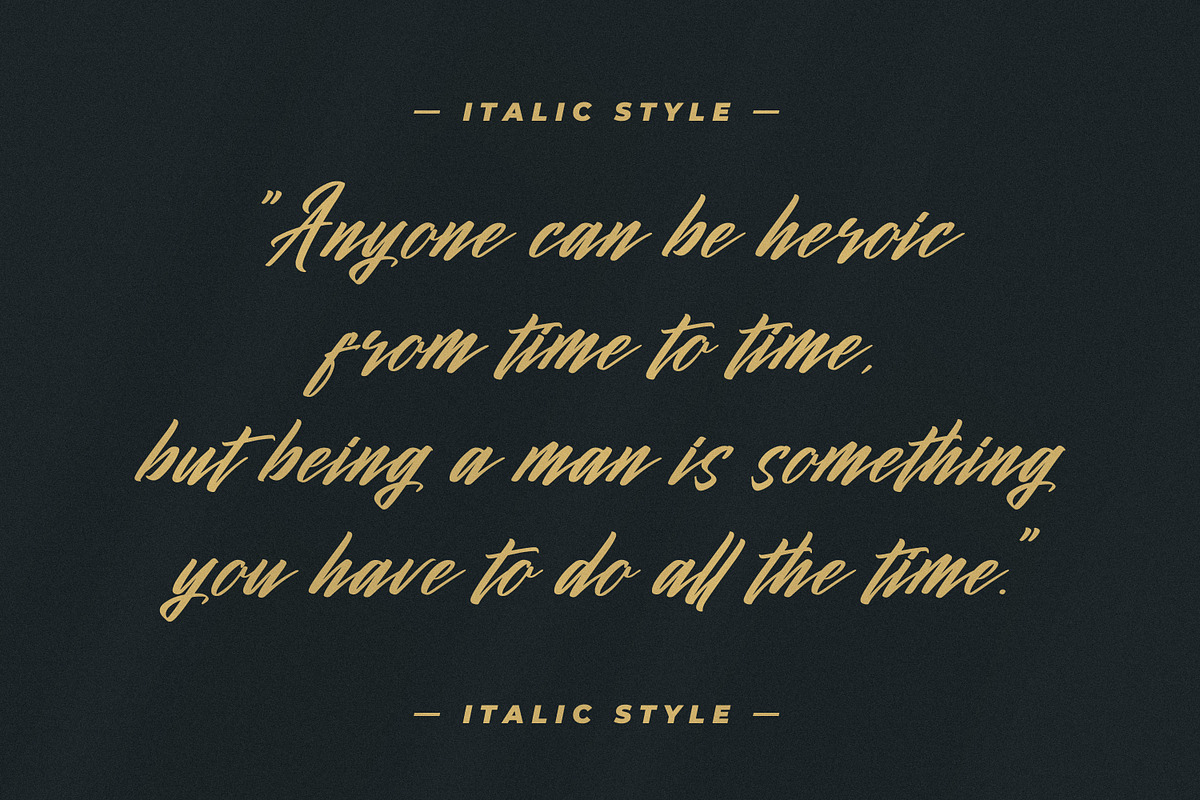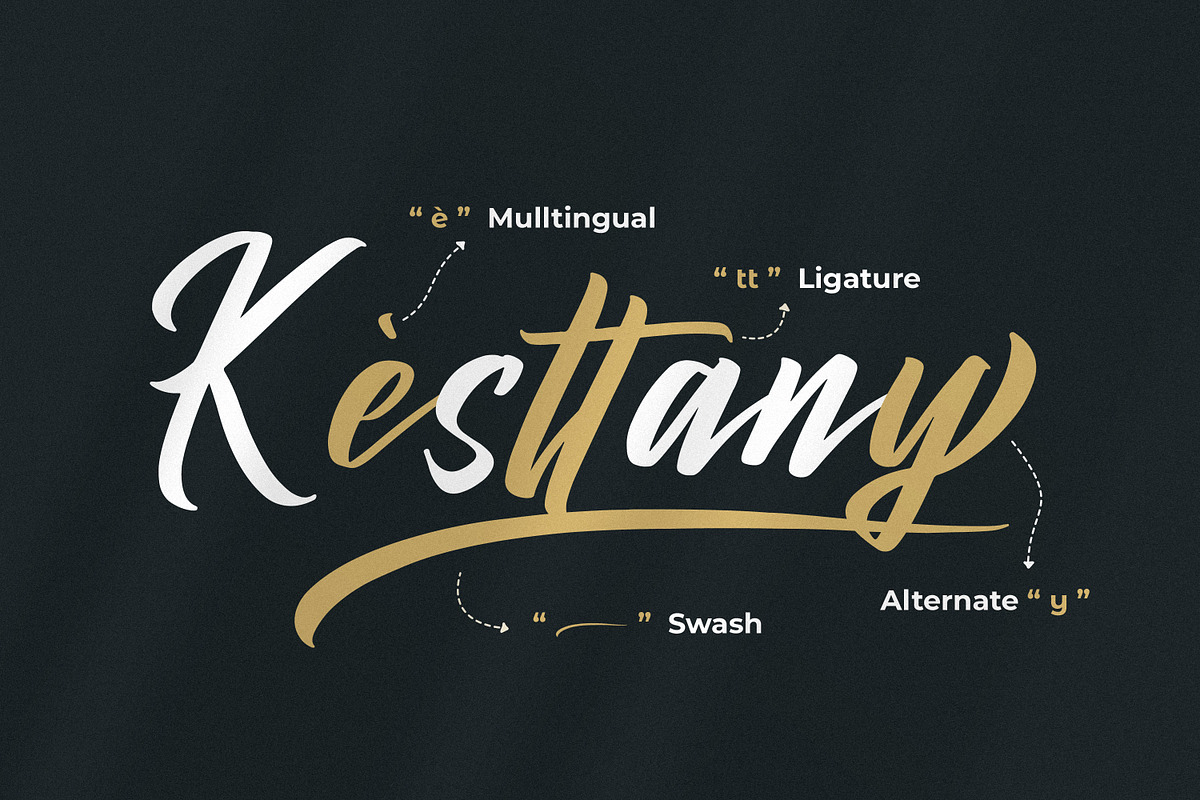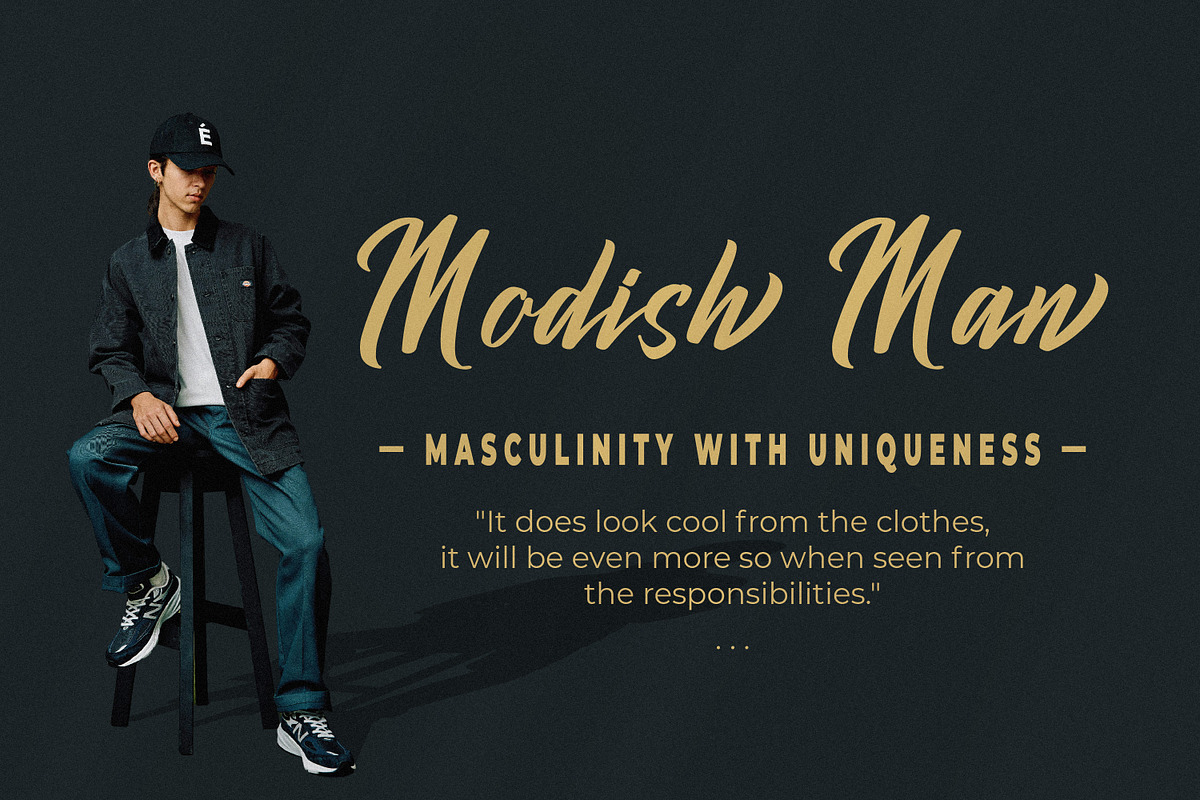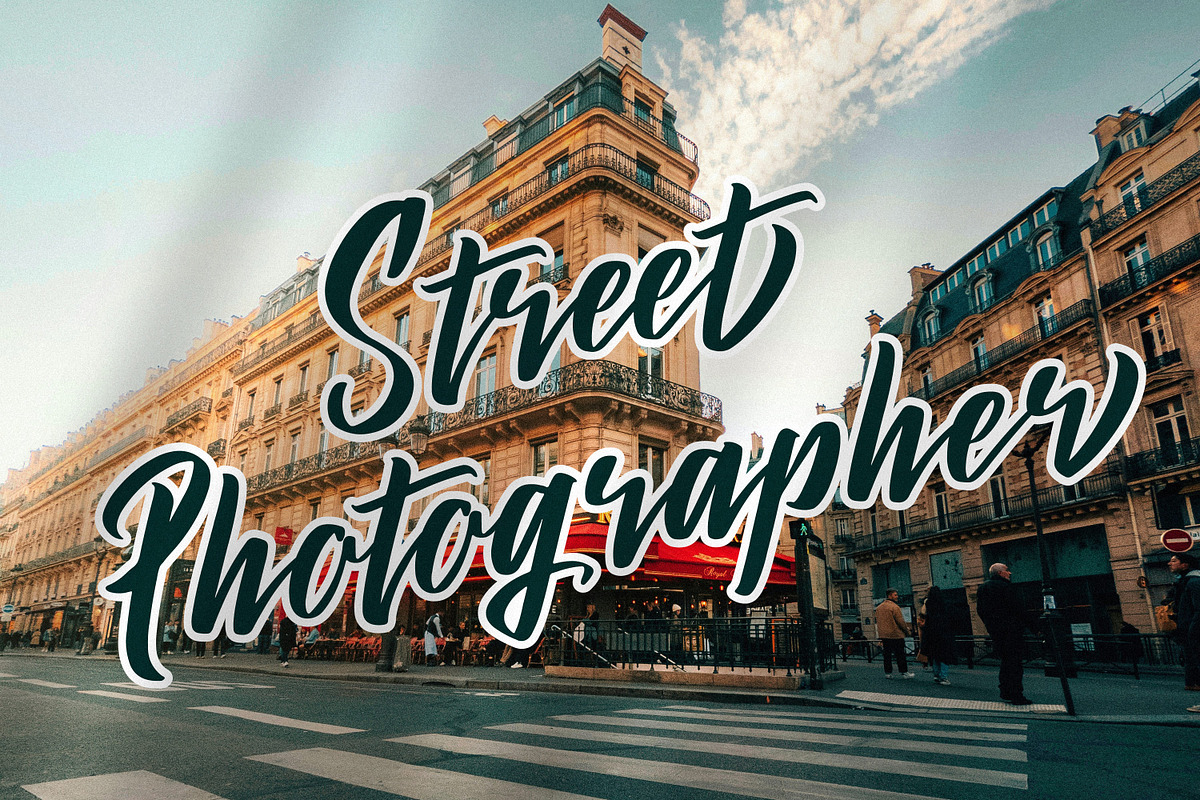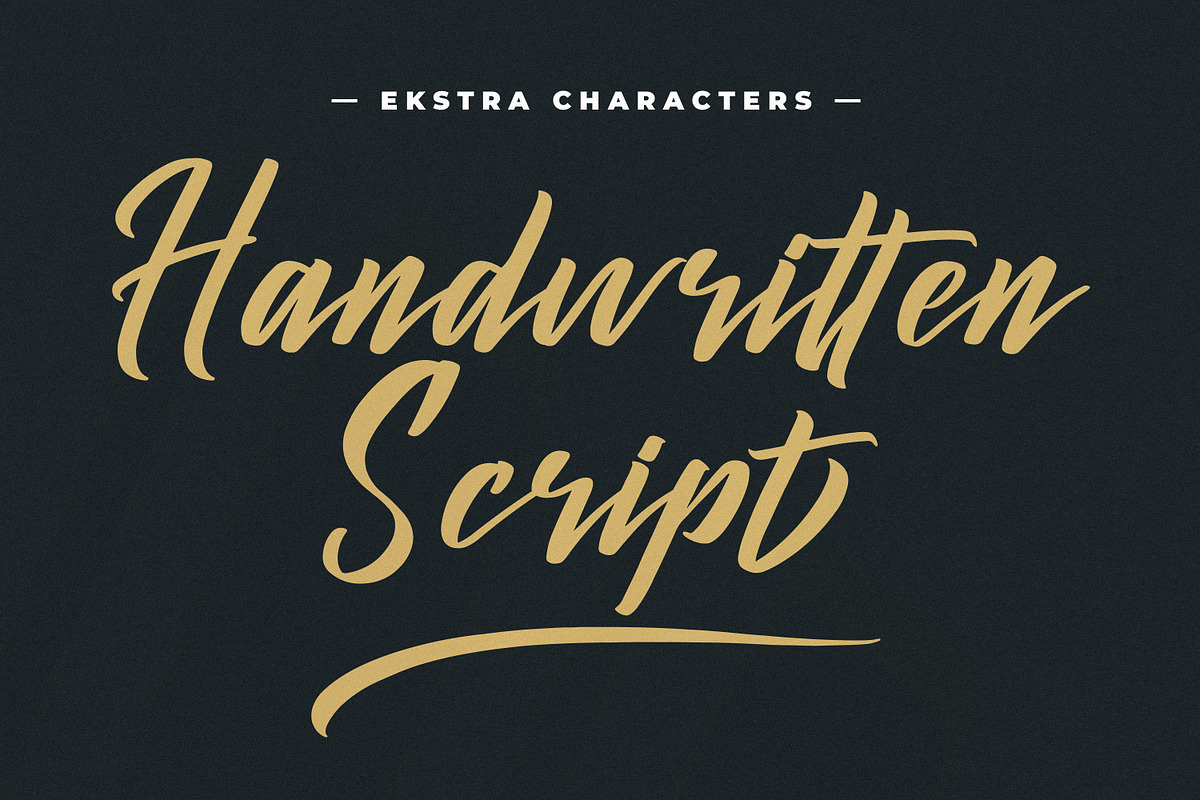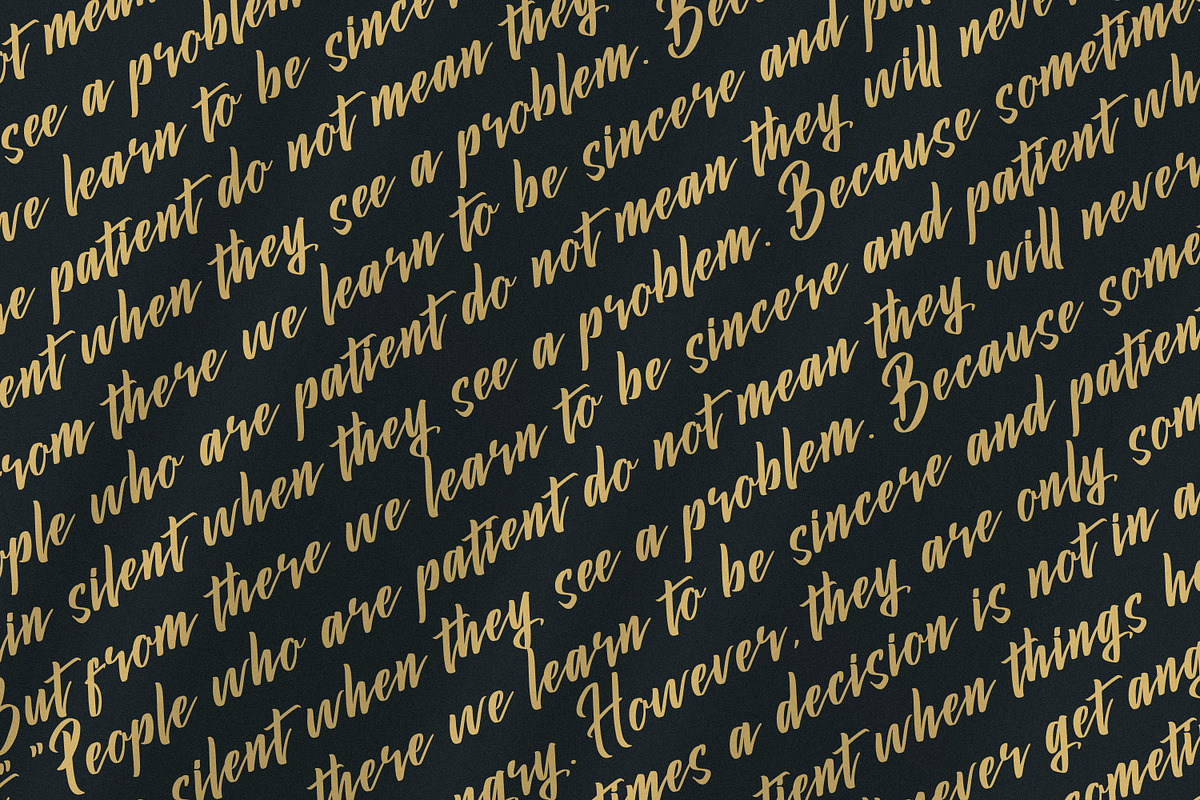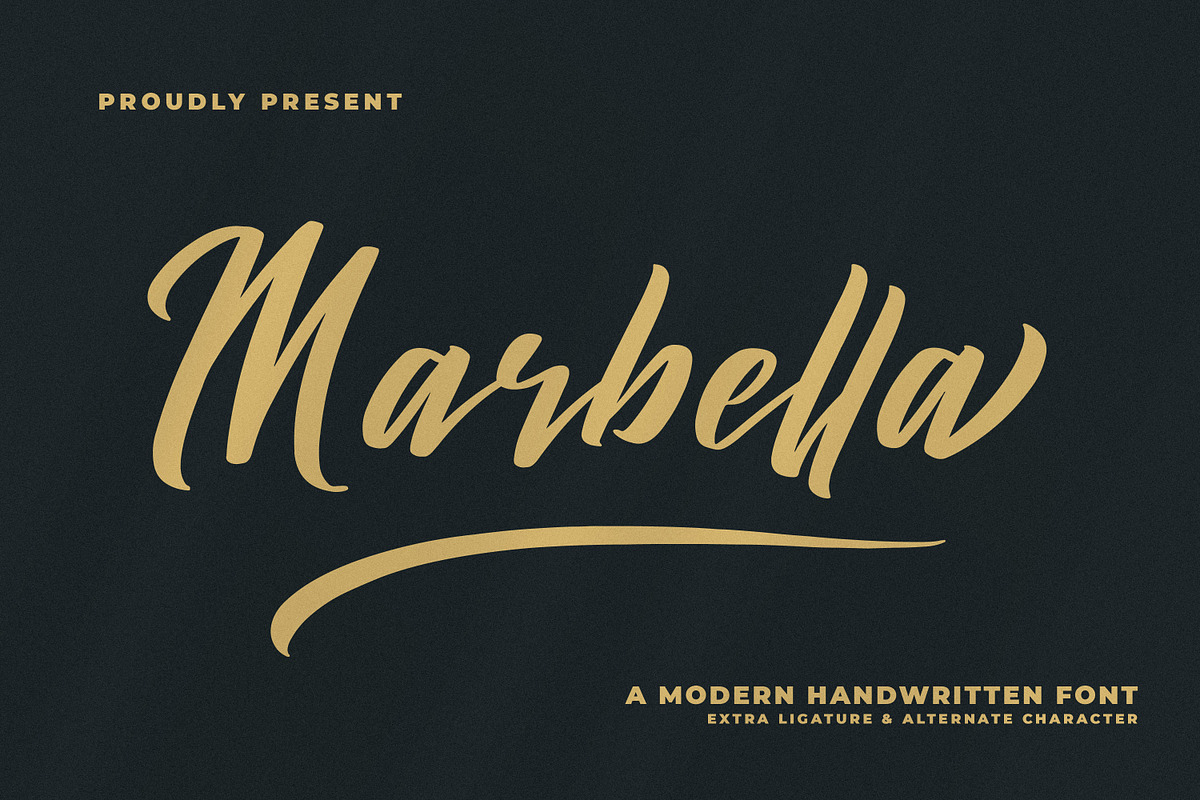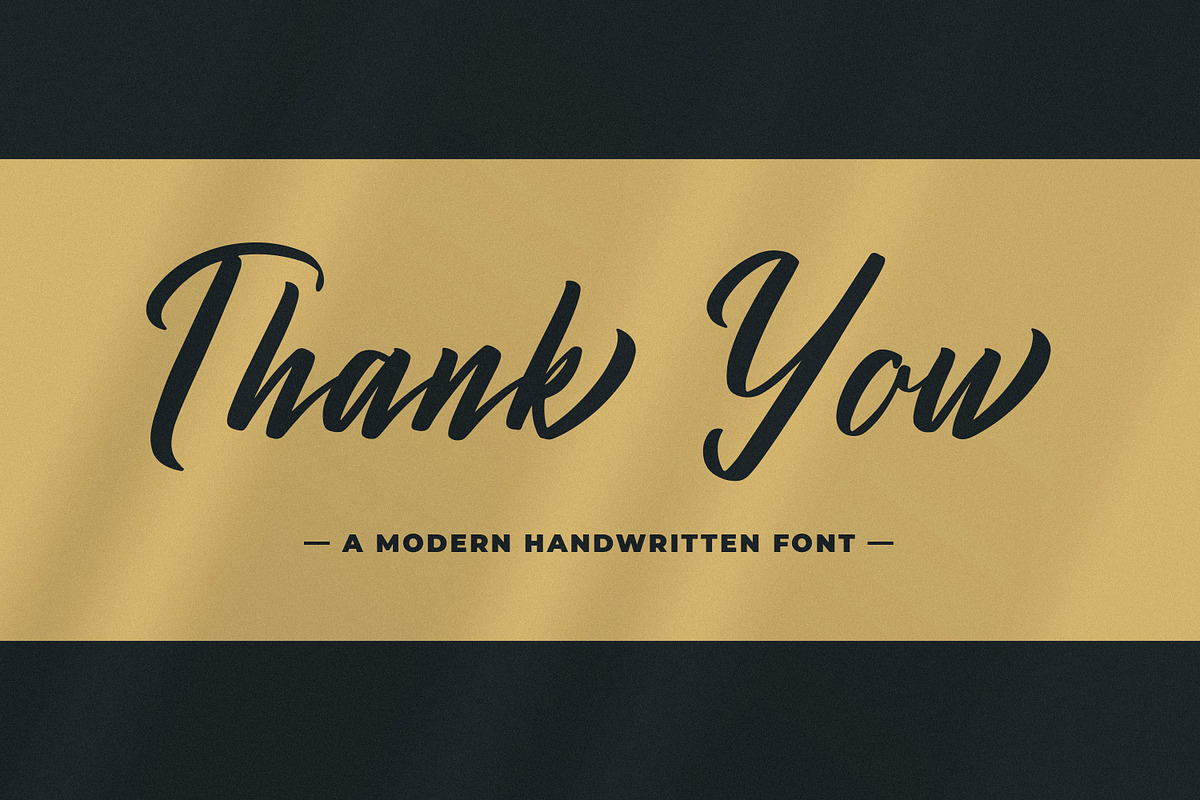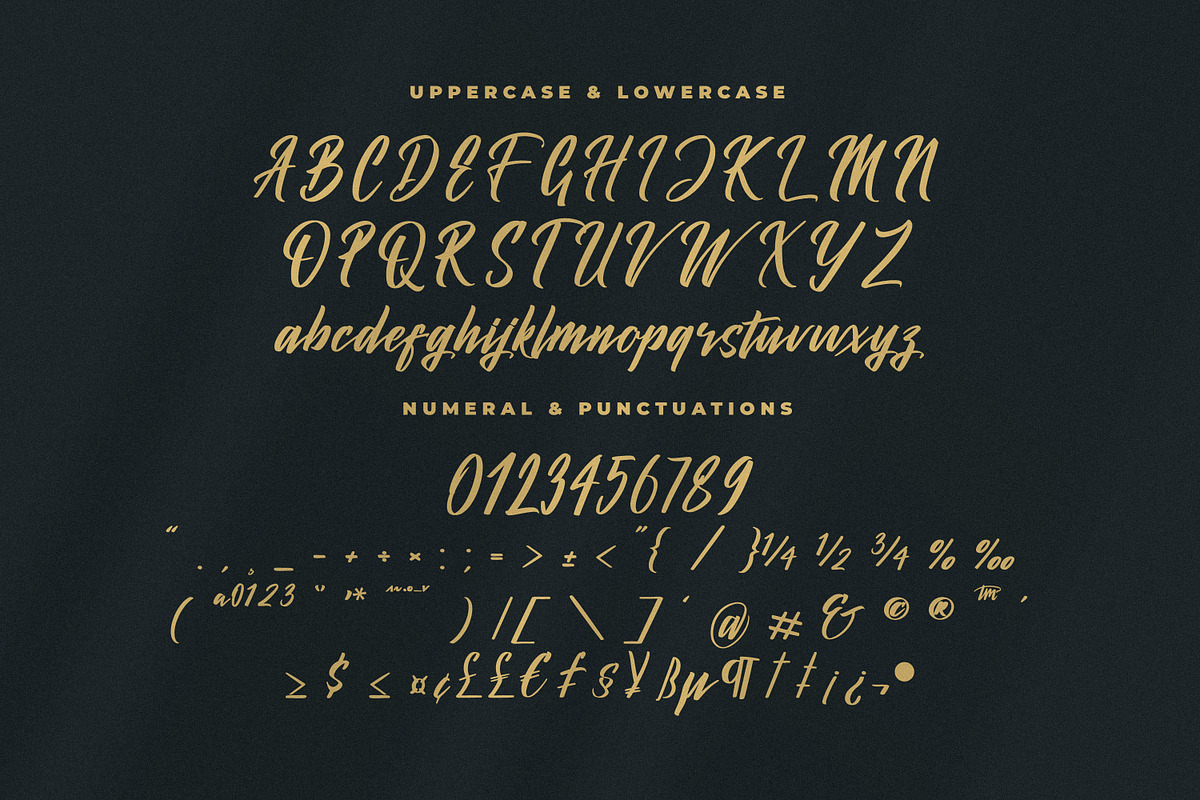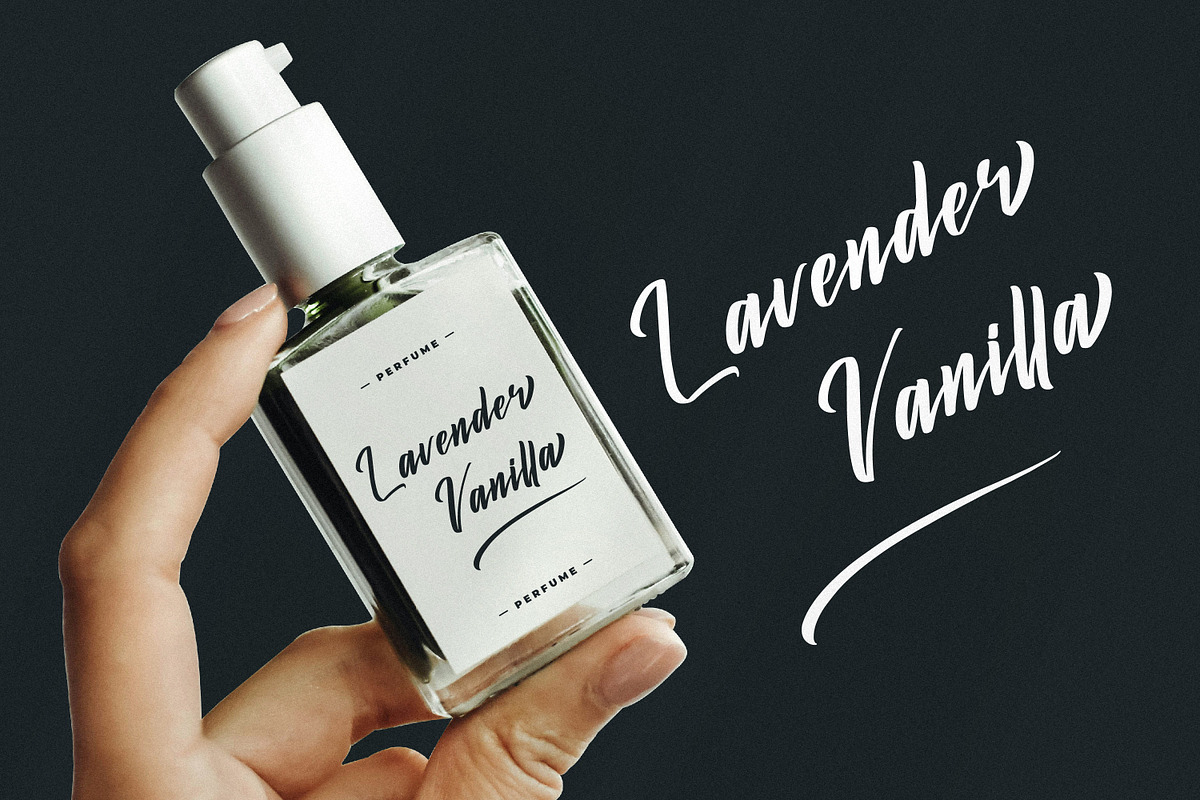
Marbella
Marbella - A Modern Handwritten Font, from Goresan Studio, suitable for any projects such as: logos, branding projects, homeware designs, product packaging, mugs, quotes, posters, shopping bags, t-shirts, book covers, name card, invitation cards, greeting cards, label, photography, watermark, special events, and all your other lovely projects that need a beautiful script taste.
- Alternate, Ligature and Swash
- Fonts include multilingual support.